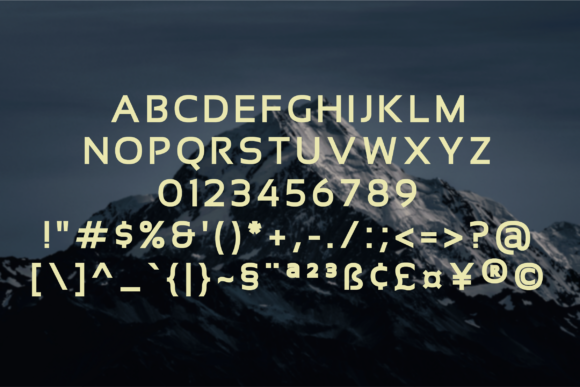
Introduction to Horelios Black Font Font
Fonts play a crucial role in design, and the Horelios Black Font font is a typeface that brings both character and versatility to any project. Whether you’re working on a branding project, a website, or a print design, the Horelios Black Font font offers a unique style that can elevate your work.
| 📌 Font Name | Horelios Black Font |
| 👤 Author | Huntype |
Horelios is a minimalistic, timeless, and stunning all caps sans serif font that looks beautiful in layouts, headers, web, and many other contexts.
Horelios is a minimalistic, timeless, and stunning all caps sans serif font that looks beautiful in layouts, headers, web, and many other contexts!
Key Features of Horelios Black Font Font
Why Choose Horelios Black Font Font?
The Horelios Black Font font is more than just a typeface – it’s a design tool that helps you communicate your message with style and clarity. Its unique character set and versatile design make it suitable for a wide range of applications, from elegant invitations to bold headlines.
With its carefully crafted letterforms and balanced proportions, the Horelios Black Font font ensures readability and visual appeal across all mediums.
What makes Horelios Black Font font special?
The Horelios Black Font font stands out with its unique design, exceptional readability, and versatility across various design applications.